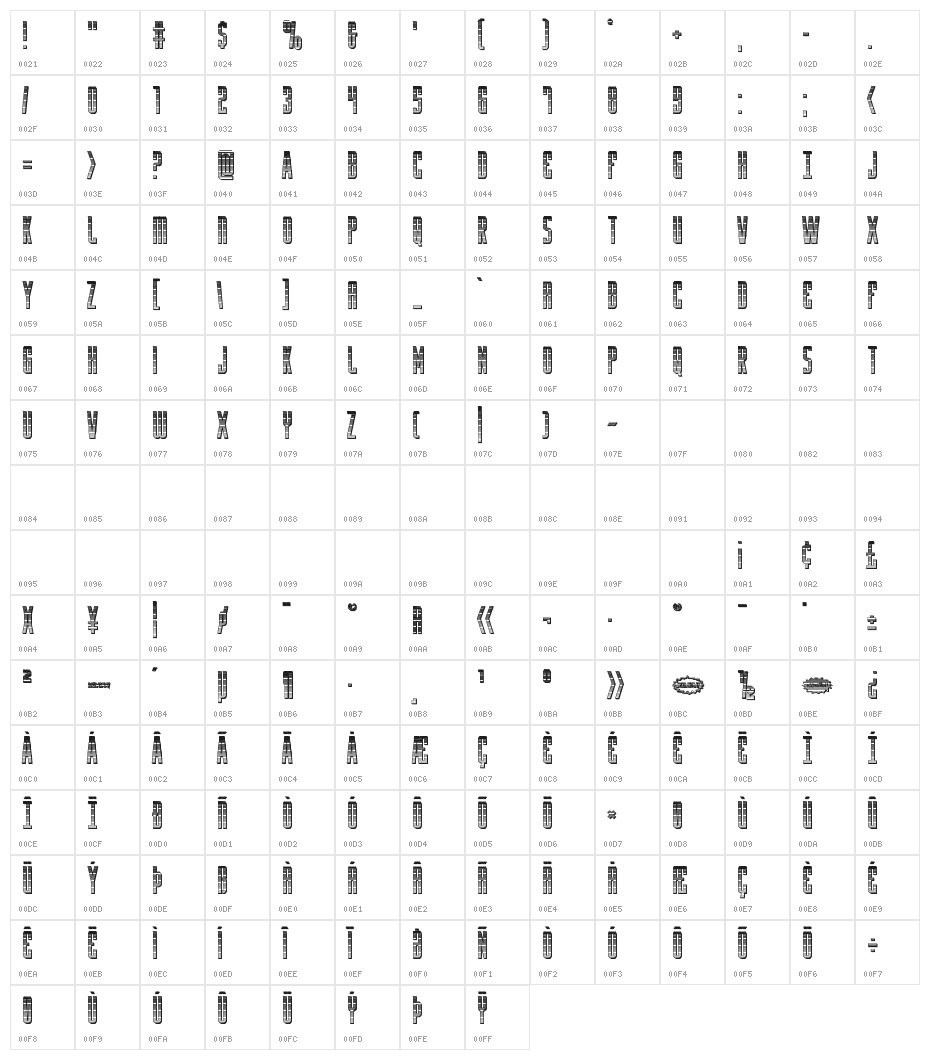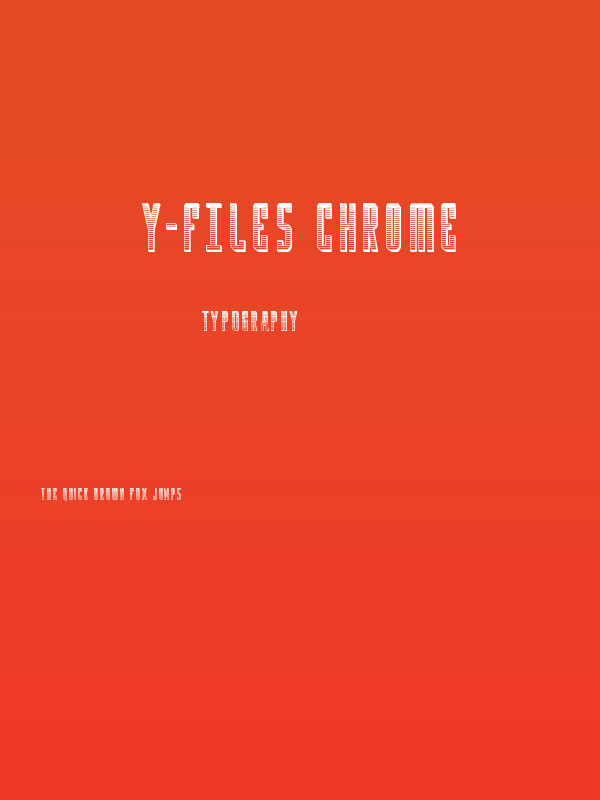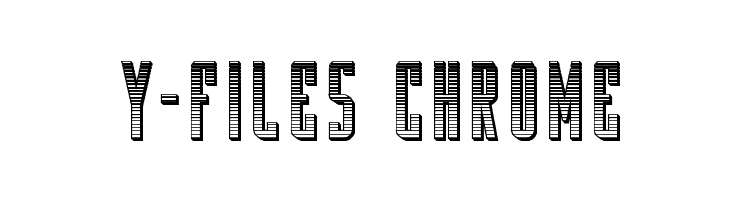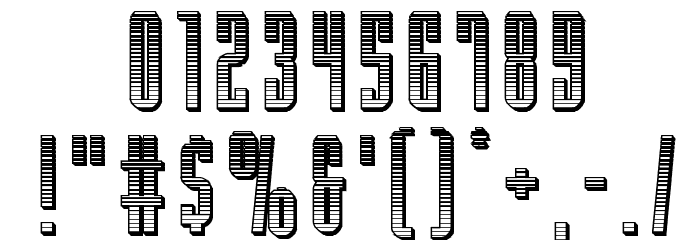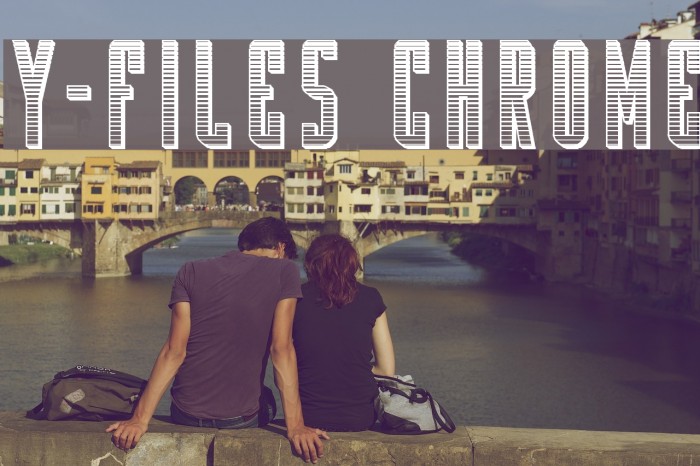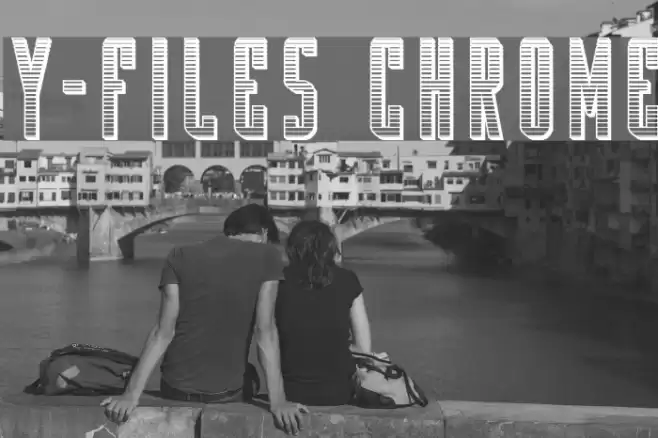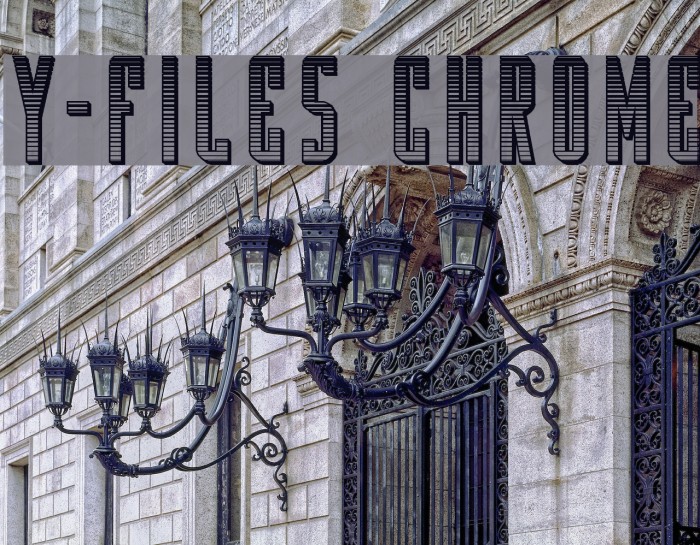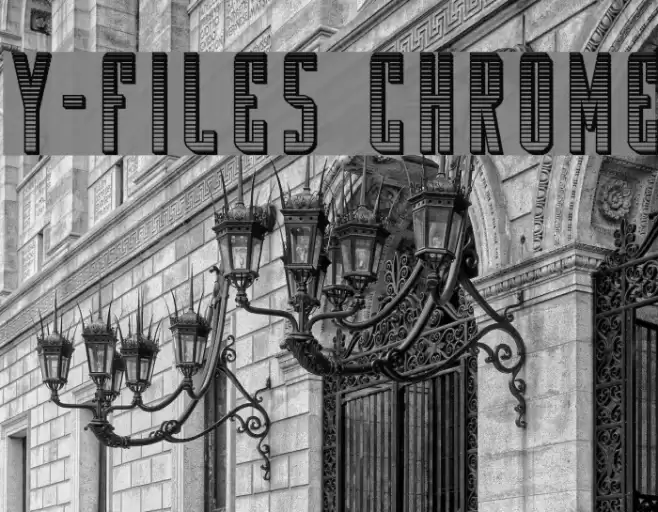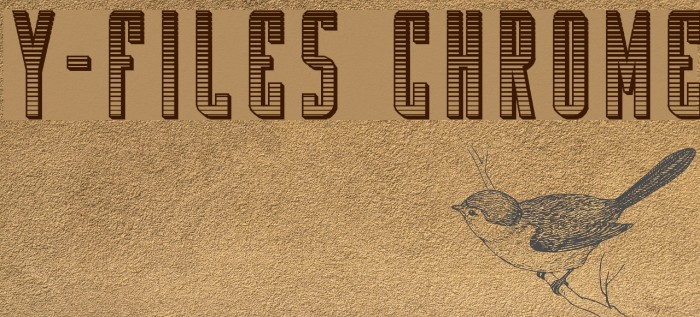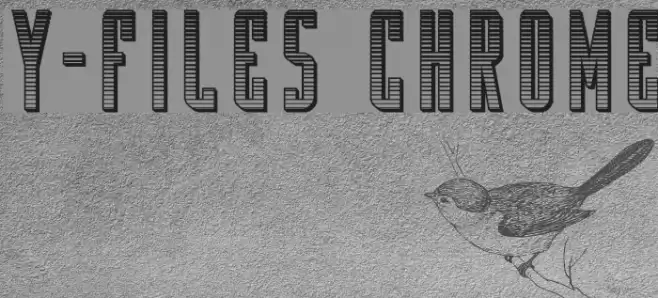
Y-Files Chrome Font
Y-Files Chrome Description
This font features a bold, three-dimensional design with a unique striped pattern running horizontally across each character. The letters are uppercase and have a strong, impactful presence, making them ideal for attention-grabbing headlines or titles. The numbers and special characters share the same bold and structured aesthetic, ensuring consistency across all text elements. The font's design is reminiscent of vintage signage, with a modern twist that adds depth and dimension.
| Overall Style | Vintage, Modern |
| Proposed Projects | Ideal for retro-themed posters, eye-catching headlines, branding materials, and creative design projects that require a bold statement. |